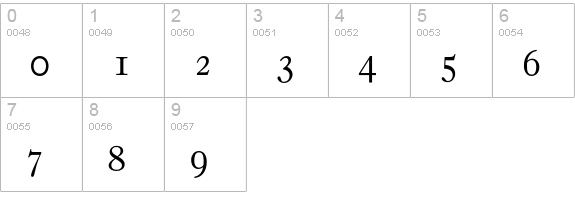
Old Style 7 Small Caps & Old Style Figures font exudes timeless elegance and classic charm. With its refined serifs and delicate curves, this font is perfect for adding a touch of sophistication to any design project. The Old Style Figures add a vintage flair, while the Small Caps bring a touch of formality to your text. What's even better is that Old Style 7 Small Caps & Old Style Figures font is available for free download at FontsMarket.com. Whether you're working on a branding project, a wedding invitation, or a magazine layout, this versatile font will elevate your design with its unique character and versatility. Don't miss out on the opportunity to enhance your projects with this stunning font - download it for free today!